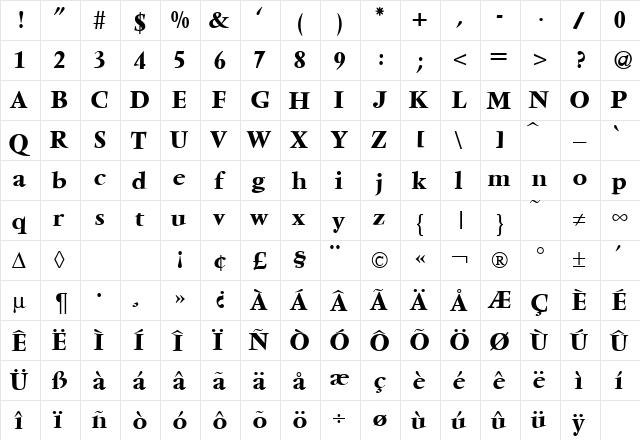
VendomeTwo Bold Font Preview
VendomeTwo Bold
VendomeTwo Bold Font Details
Design Context for VendomeTwo Typeface
VendomeTwo takes a measured approach to typography — its balanced proportions and neutral character make it a reliable workhorse for both digital and print work. The heavy weight commands attention and anchors typographic hierarchies.